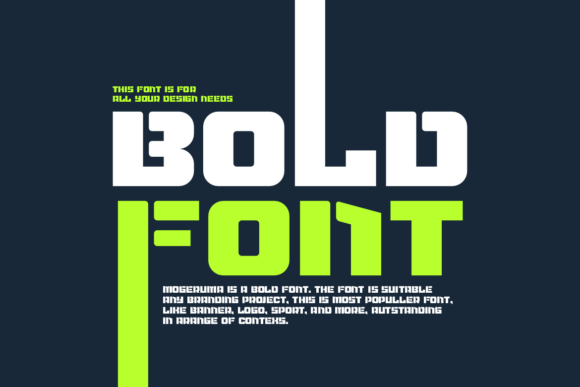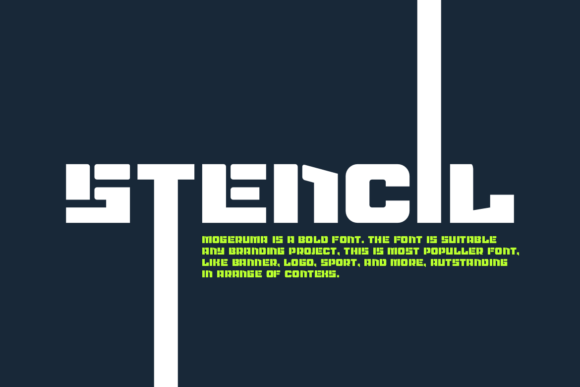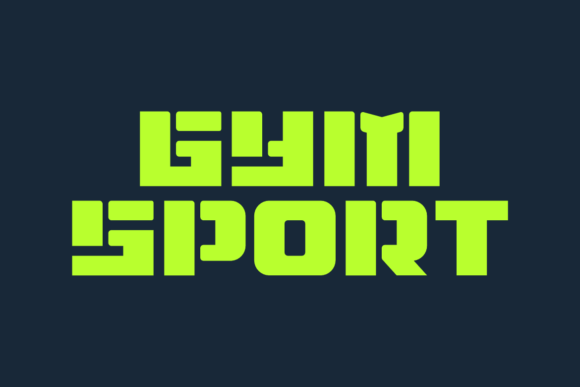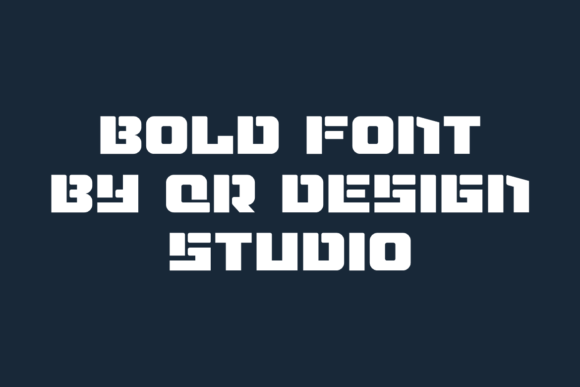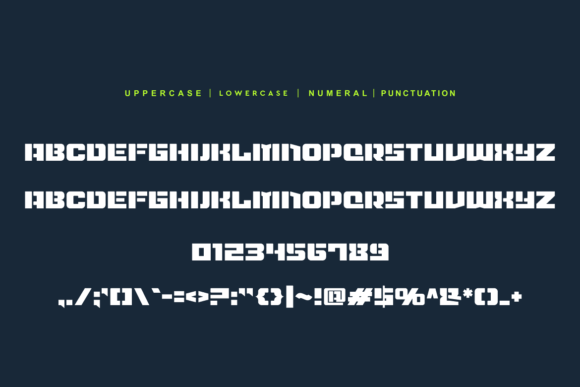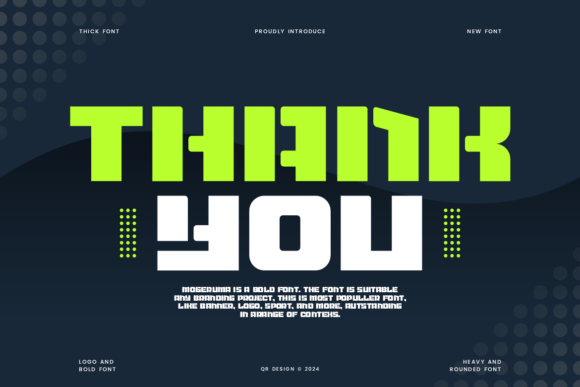
Introduction to Mogeruma Font
Do you ever find yourself staring at a blank canvas, waiting for inspiration to strike? It’s a moment we’ve all experienced as creatives, and it’s a feeling that can be both exhilarating and intimidating. But what if you had the perfect design resource to help spark that creativity and bring your vision to life? Enter the Mogeruma Font, a bold and assertive sans serif font that’s about to become your new best friend.
Whether you’re working on a high-quality creative project or simply looking for a reliable design tool, the Mogeruma Font is an incredible asset to have in your library. Its versatility and sophistication make it the perfect addition to any design project, and with its transparent background, you can easily integrate it into your work.
Key Features of Mogeruma Font
- High-quality design resource ideal for creative projects, including graphic design, digital art, and publishing.
- Includes a range of glyphs and characters, making it suitable for various languages and creative applications.
- Designed with a unique aesthetic, setting it apart from other fonts and adding a touch of sophistication to any creative project.
Honest Review: Mogeruma Font
What works well: ✨ The Mogeruma Font boasts a high quality design that’s perfect for modern branding and typography projects. The font’s unique aesthetic is both elegant and eye-catching, making it a great choice for a wide range of creative endeavors.
The transparent background feature of the Mogeruma Font is also a major plus, allowing for seamless integration with various design elements and backgrounds.
- Unique and elegant design
- High quality font for modern branding and typography
Tips for Getting the Most Out of Mogeruma Font
The Mogeruma Font is ideal for use in various creative projects, including graphic design, typography, and branding. Its high-quality design and transparent background make it a versatile design resource that can be used in a wide range of applications.